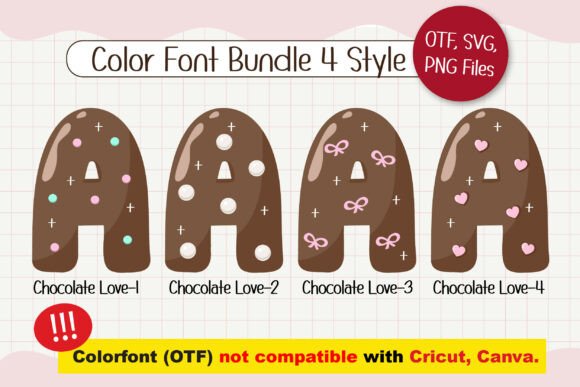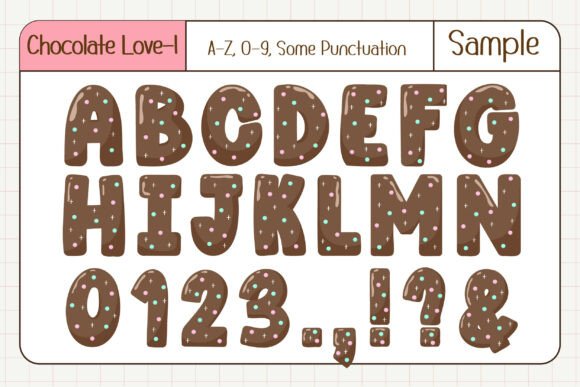
Introduction to Chocolate Love Font
Chocolate Love Font — a delightful color font that captures the sweetness and romance of Valentine’s Day through the charm of chocolate-inspired design.
Each letter is crafted with intricate chocolate details and decorations, highlighting the warm tones of chocolate brown, red, and pink to evoke love and indulgence The adorable doodle elements are designed with a feminine, Coquette Kawaii vibe, adding a touch of cuteness and elegance to every creation.
Key Features of Chocolate Love Font